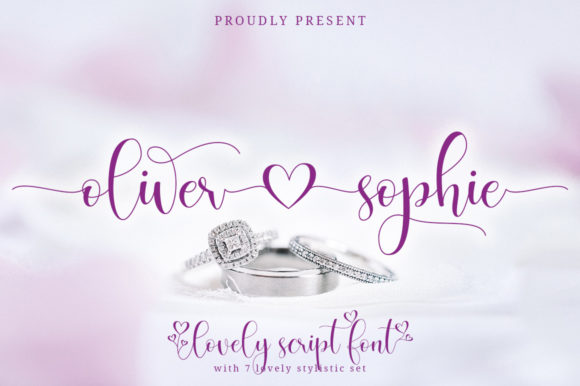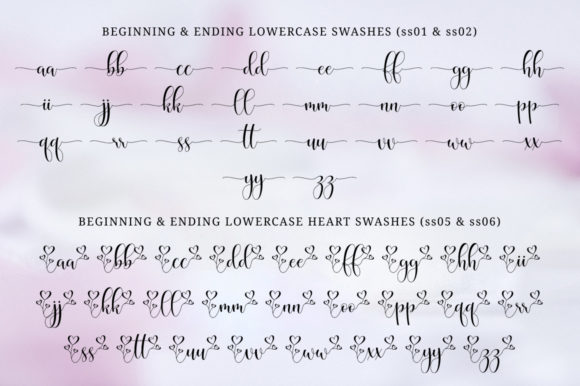
About Oliver Sophie Font
Oliver Sophie is a modern lovely calligraphy font with smooth handwritten flows. Oliver Sophie font perfect for logos, wedding stationery, cards, gift designs, photography, watermark, product packaging and handwritten quotes.